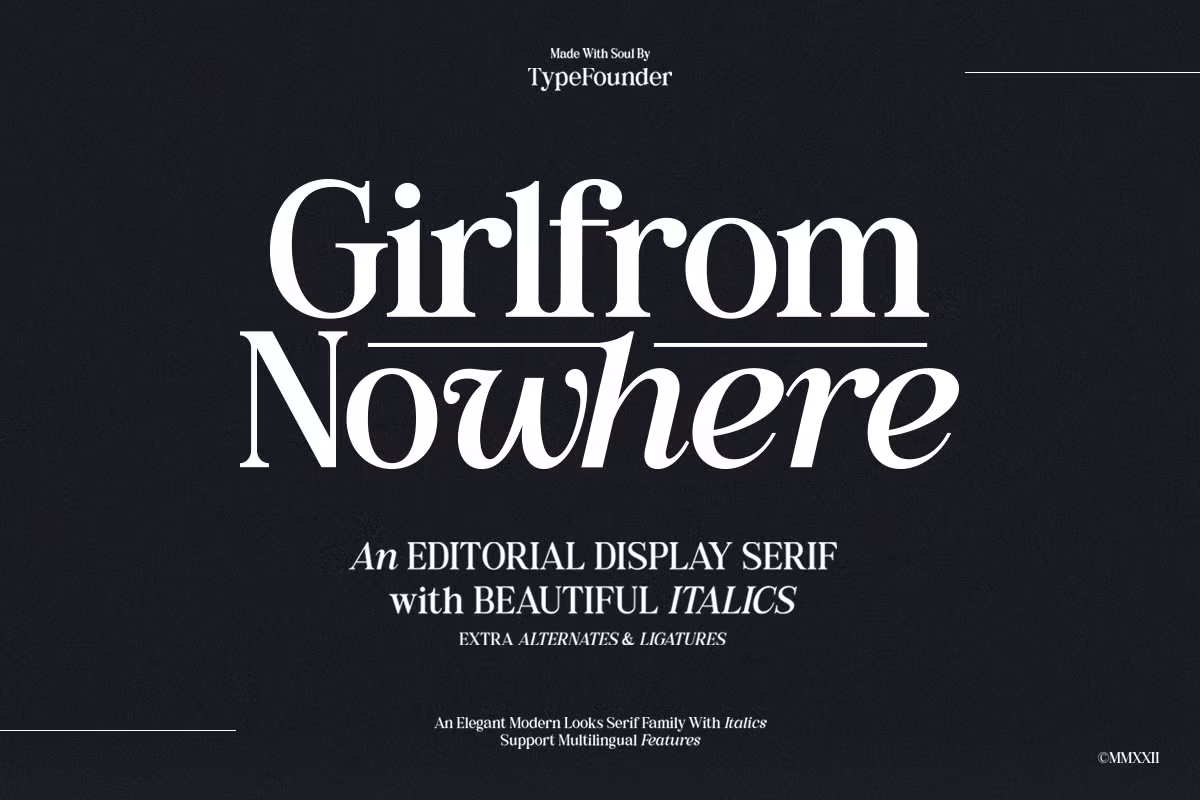
Bring a touch of vintage elegance to your designs with GirlfromNowhere - Nostalgic Serif Font Free Download. This beautifully crafted serif font combines retro-inspired letterforms with a modern flair, perfect for branding, logos, posters, invitations, and any project that needs a timeless, nostalgic feel.
GirlfromNowhere features high-contrast strokes, refined serifs, and classic proportions, creating a balance between modern readability and old-world charm. It includes uppercase and lowercase letters, numerals, punctuation, and multilingual support, offering the versatility to explore a wide range of design layouts.